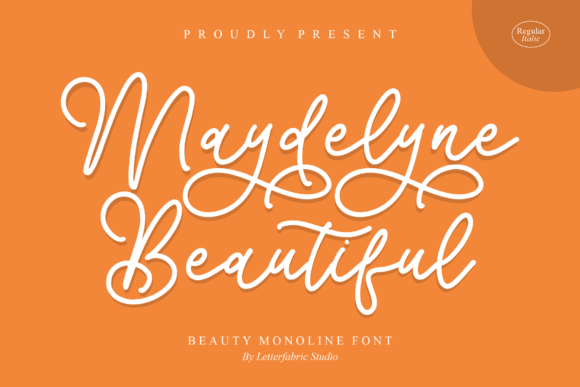
Introducing Maydelyne Beautiful Font, a calligraphic gem that exudes elegance and sophistication. Step into a world of visual enchantment with this script font that whispers grace and allure into every design.
Crafted by the talented Letterfabric, Maydelyne Beautiful is a captivating font that brings an artistic touch to your creative projects. Its monoline strokes flow effortlessly, like ink dancing across paper, creating a visually stunning masterpiece.
Maydelyne Beautiful is the perfect font to evoke a sense of charm and intimacy in your designs. Its delicate curves and flourishes add a touch of whimsy and romance, making it an ideal choice for projects that demand a personal and heartfelt feel.
Whether you're designing logos, branding projects, homeware designs, or product packaging, Maydelyne Beautiful is your perfect companion. Its versatility extends to mugs, quotes, posters, shopping bags, t-shirts, book covers, name cards, and invitation cards.
Create greeting cards that leave a lasting impression, labels that exude a touch of class, and photography that captures the beauty of life. Maydelyne Beautiful is the ultimate choice for adding a unique and captivating touch to all your creative endeavors.
With its timeless elegance, Maydelyne Beautiful Font will elevate your designs to new heights of artistry and grace. Experience the magic of this enchanting font and let your creativity shine.